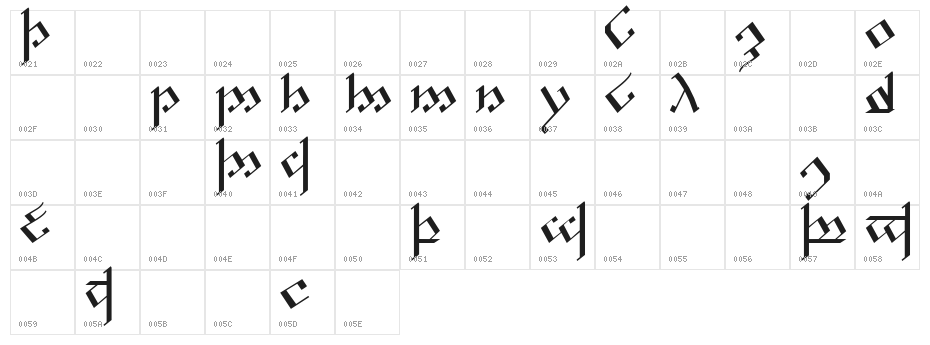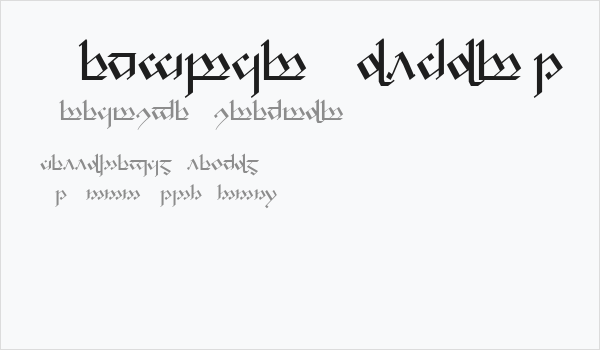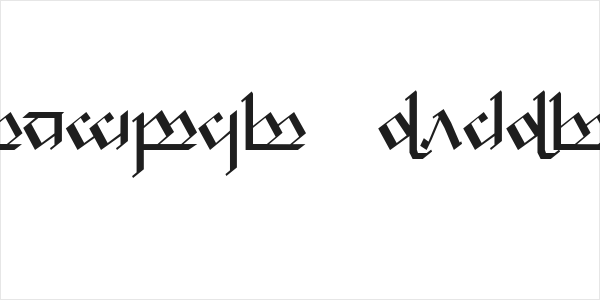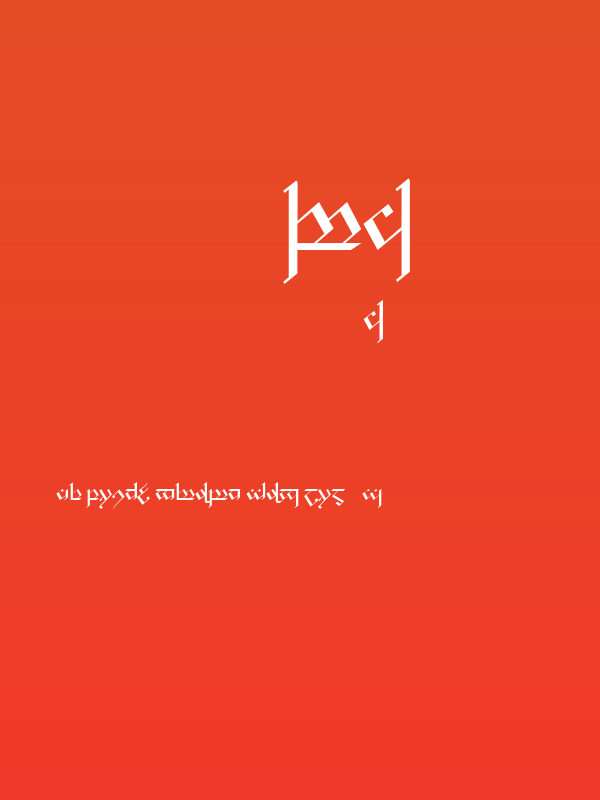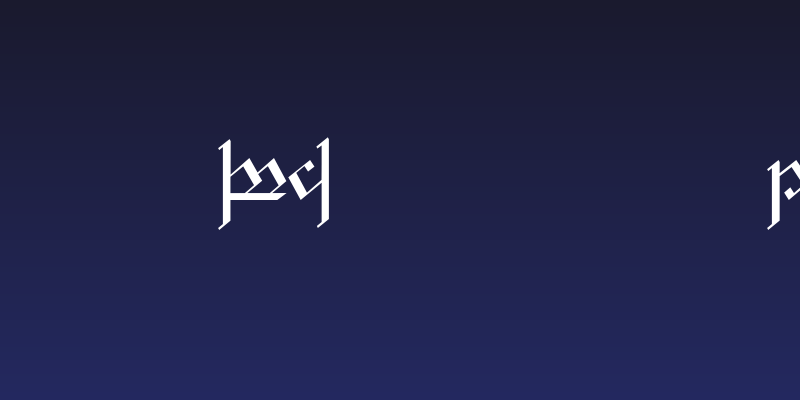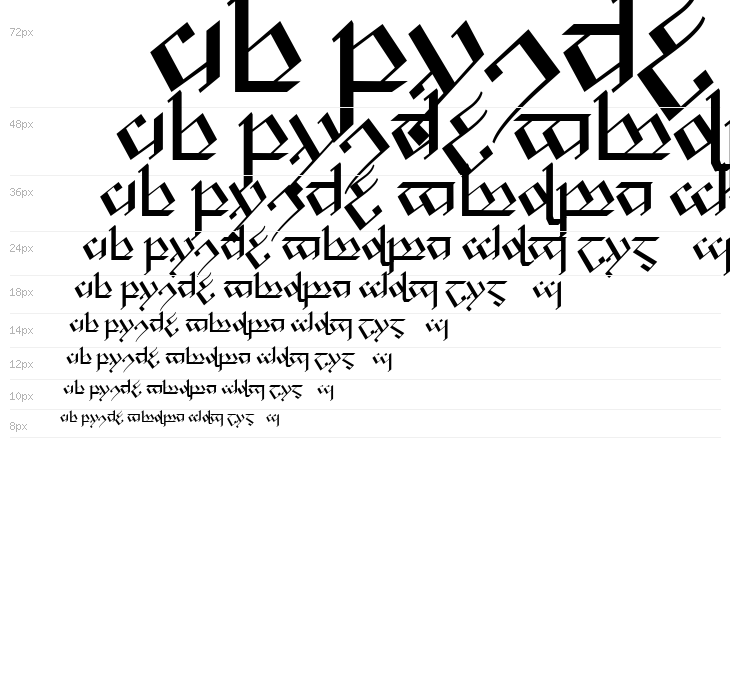
Tengwar Noldor 1 Font
Tengwar Noldor 1 Description
This font is a decorative script inspired by the fictional Elvish writing systems from fantasy literature. It features intricate, angular characters with a distinct medieval and mystical aesthetic. The characters are composed of sharp lines and curves, creating a sense of elegance and mystery. The font is highly stylized, with each letterform exhibiting unique flourishes and embellishments. The overall appearance is both ornate and legible, making it suitable for thematic projects that require a touch of fantasy or historical ambiance.
| Use Case | Logos, Headlines, Thematic designs |
| Proposed Projects | Ideal for fantasy-themed projects, book covers, game design, and decorative posters. |